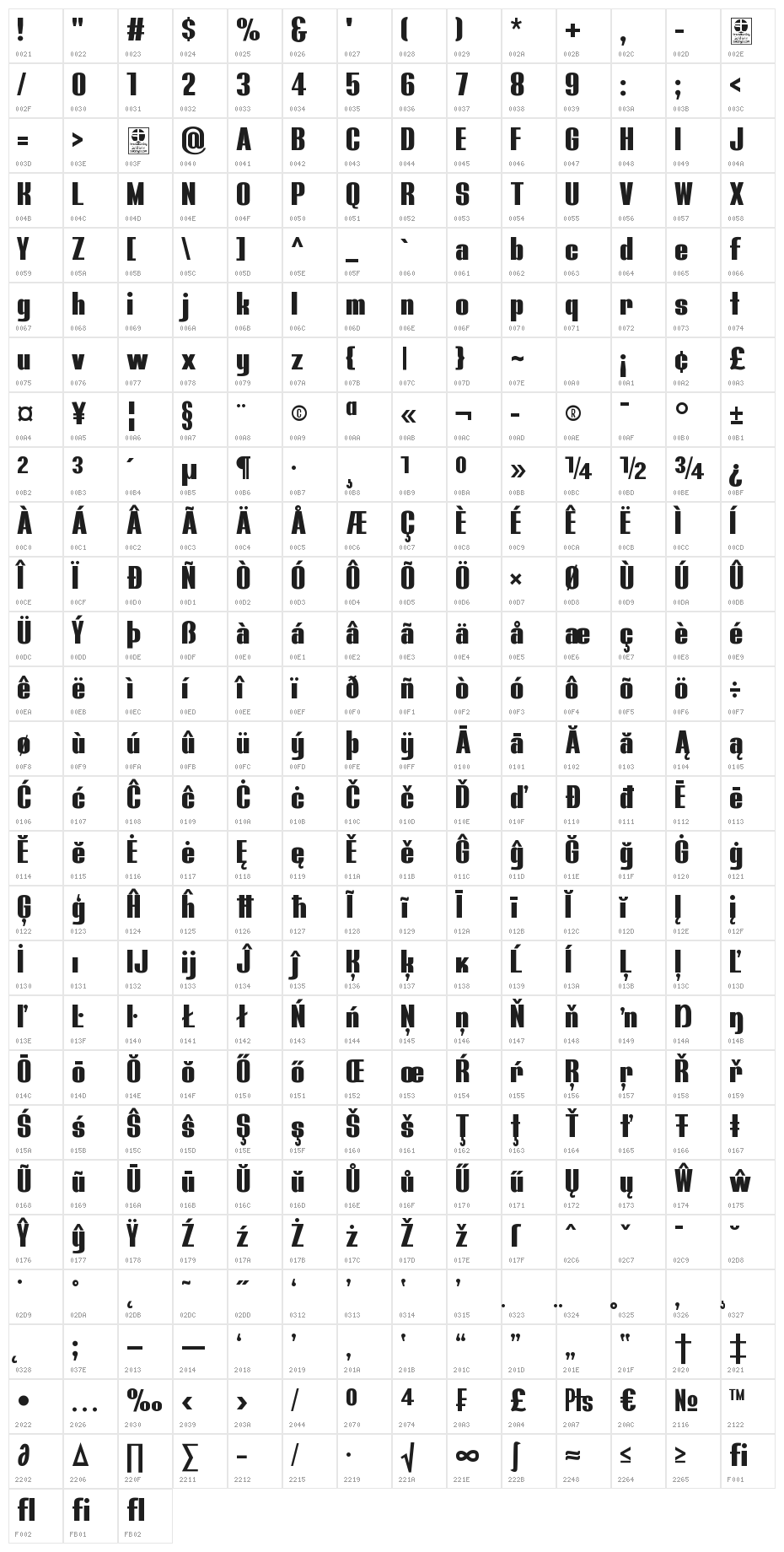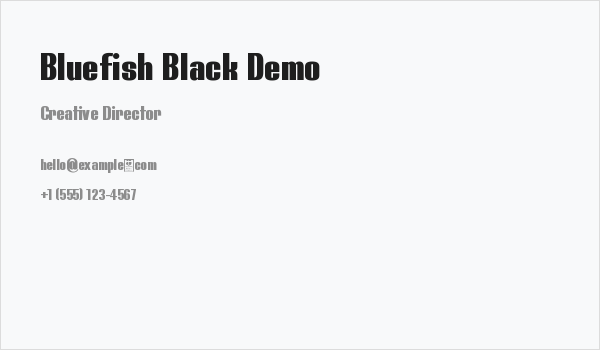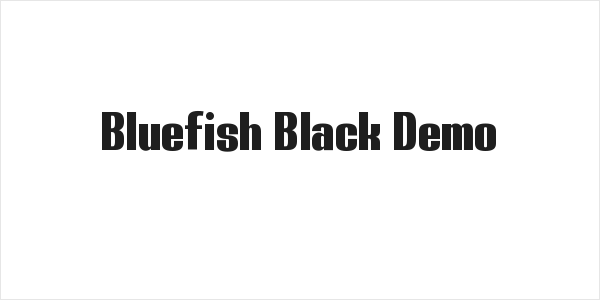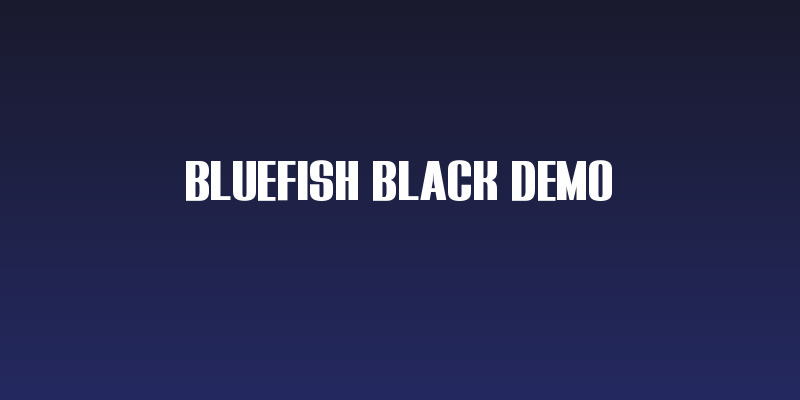
Bluefish Black Demo Font
Bluefish Black Demo Description
This font features bold, thick strokes with a strong presence, making it ideal for impactful designs. The uppercase and lowercase letters are well-proportioned, maintaining a consistent weight throughout. The numbers and special characters are designed to match the boldness of the alphabet, ensuring a cohesive look. The font's style is modern and assertive, suitable for projects that require a strong visual statement. Its high contrast in stroke thickness adds to its readability and visual appeal.
| Proposed Projects | Ideal for headlines, posters, branding, and advertising where a bold statement is needed. |